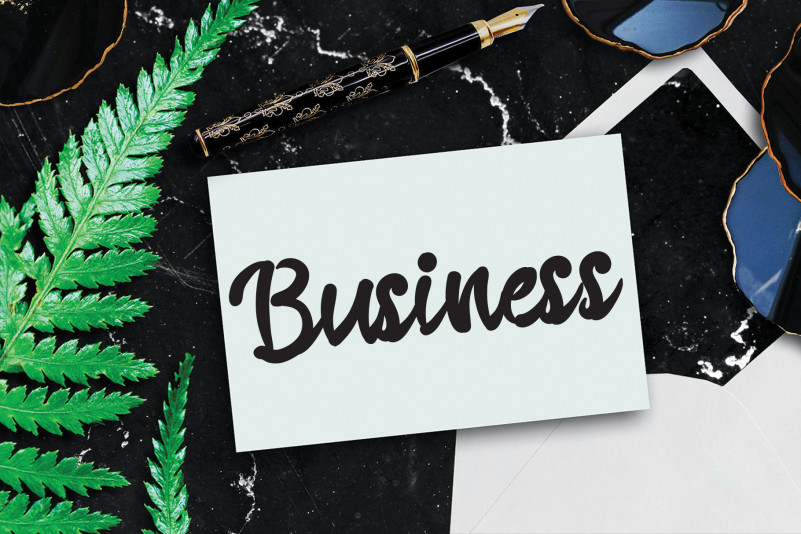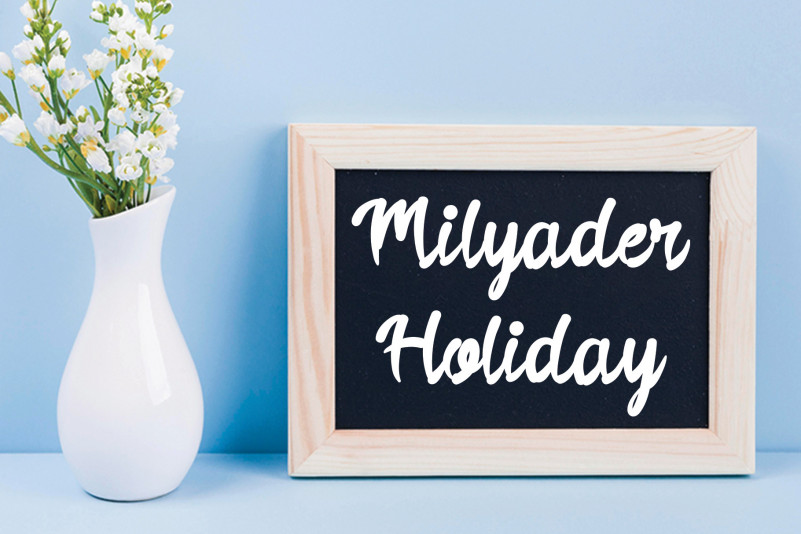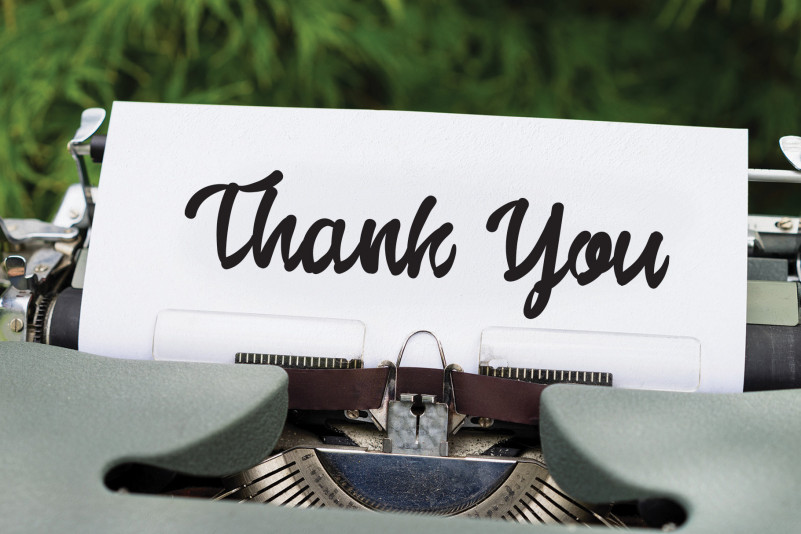
Veronica Flower Script Font
Veronica Flower Script Font is a delicate and sweet handwritten font. Its beautiful and rounded letters make this font a work of art. Fall in love with its incredibly versatile style and use it to create spectacular designs!